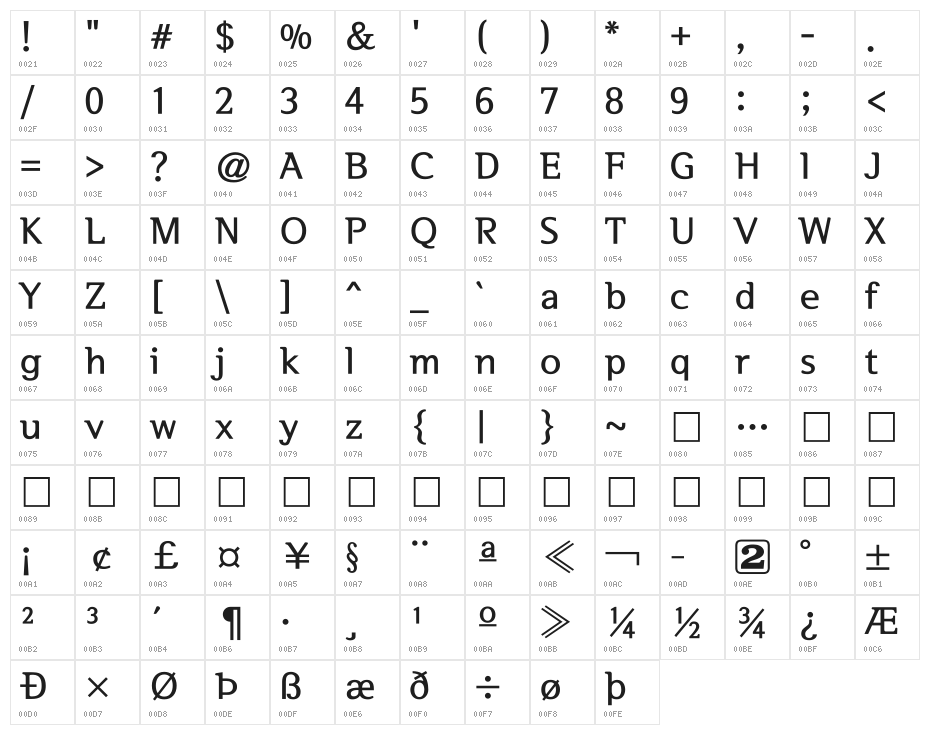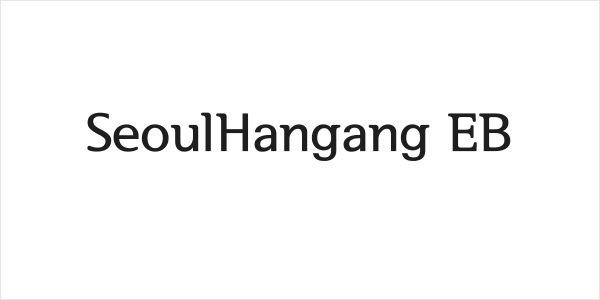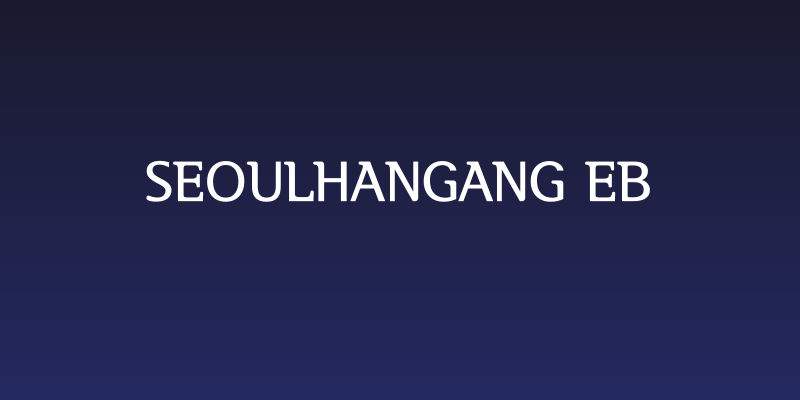
SeoulHangang EB Font
SeoulHangang EB Description
This font features a clean and modern design with a strong emphasis on readability. The characters are well-balanced with a consistent stroke width, giving it a uniform appearance. The uppercase letters are bold and authoritative, while the lowercase letters maintain a friendly and approachable feel. The numerals are clear and distinct, making them easy to read. Special characters are well-integrated, maintaining the overall aesthetic of the font. Its design is versatile, suitable for both digital and print media.